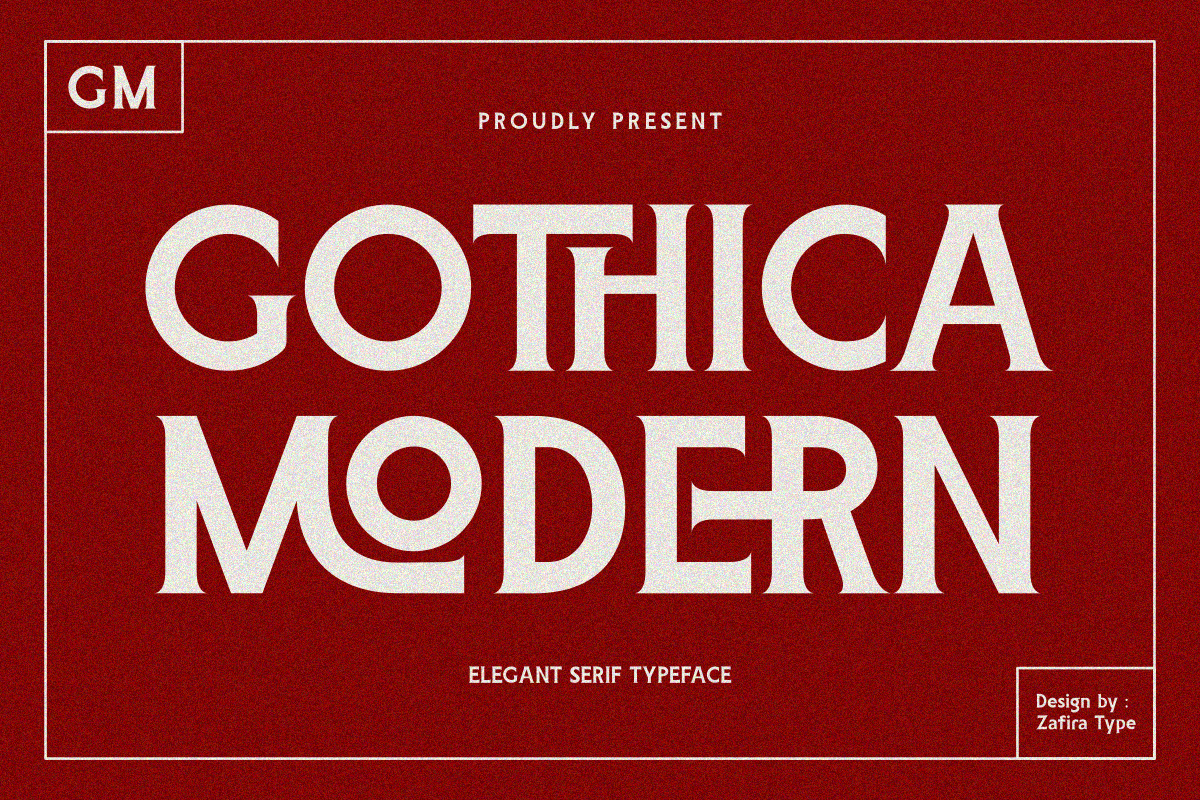
Gothica Modern Gm – Luxury Serif Font
Gothica Modern Gm – Luxury Serif Font is a versatile font designed to adapt beautifully across different design styles, offering dependable readability and balance. Gothica Modern GM is a luxury serif typeface built on strength and refinement. Its bold serifs, confident proportions, and balanced contrast create a commanding presence while maintaining polished elegance.
Designed for modern brands that demand authority and sophistication, premium packaging, luxury logos, and statement headlines.
Gothica Modern GM speaks in a voice that is powerful yet graceful — a serif crafted for contemporary prestige.